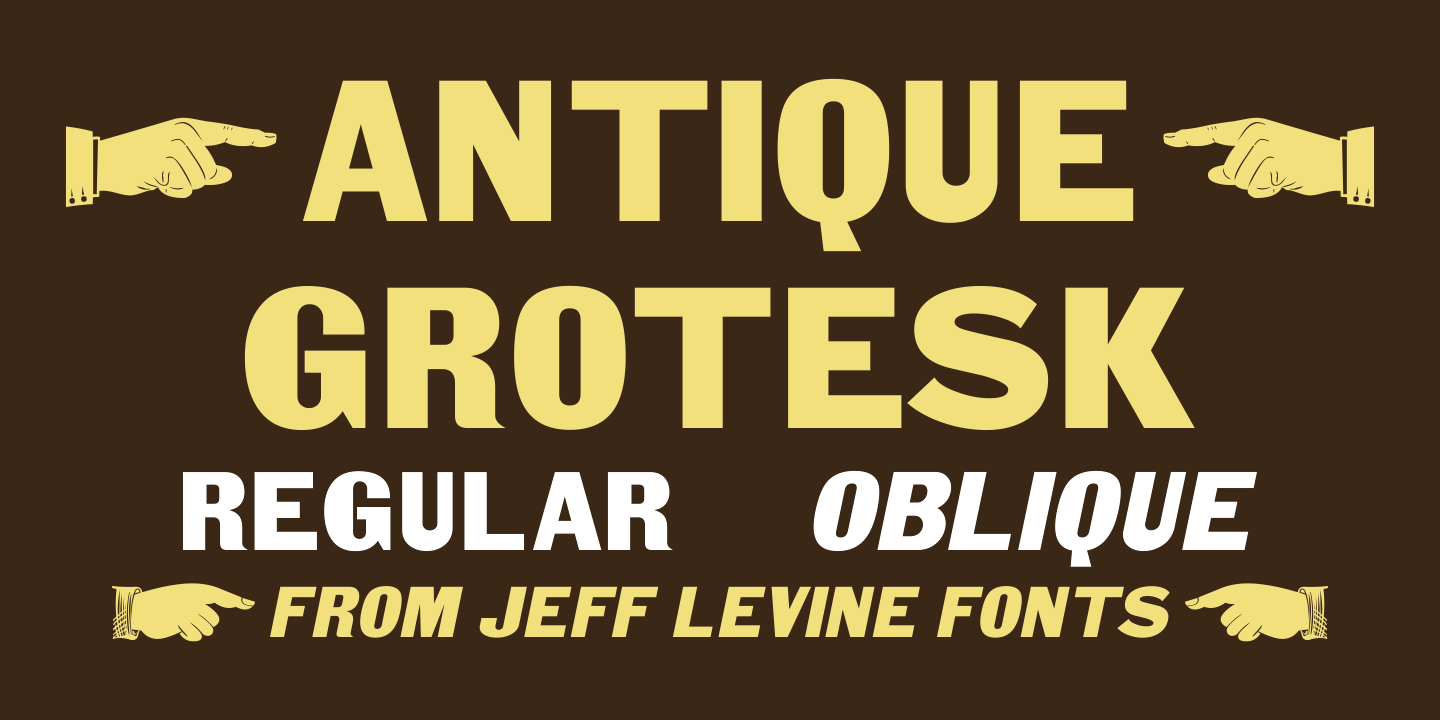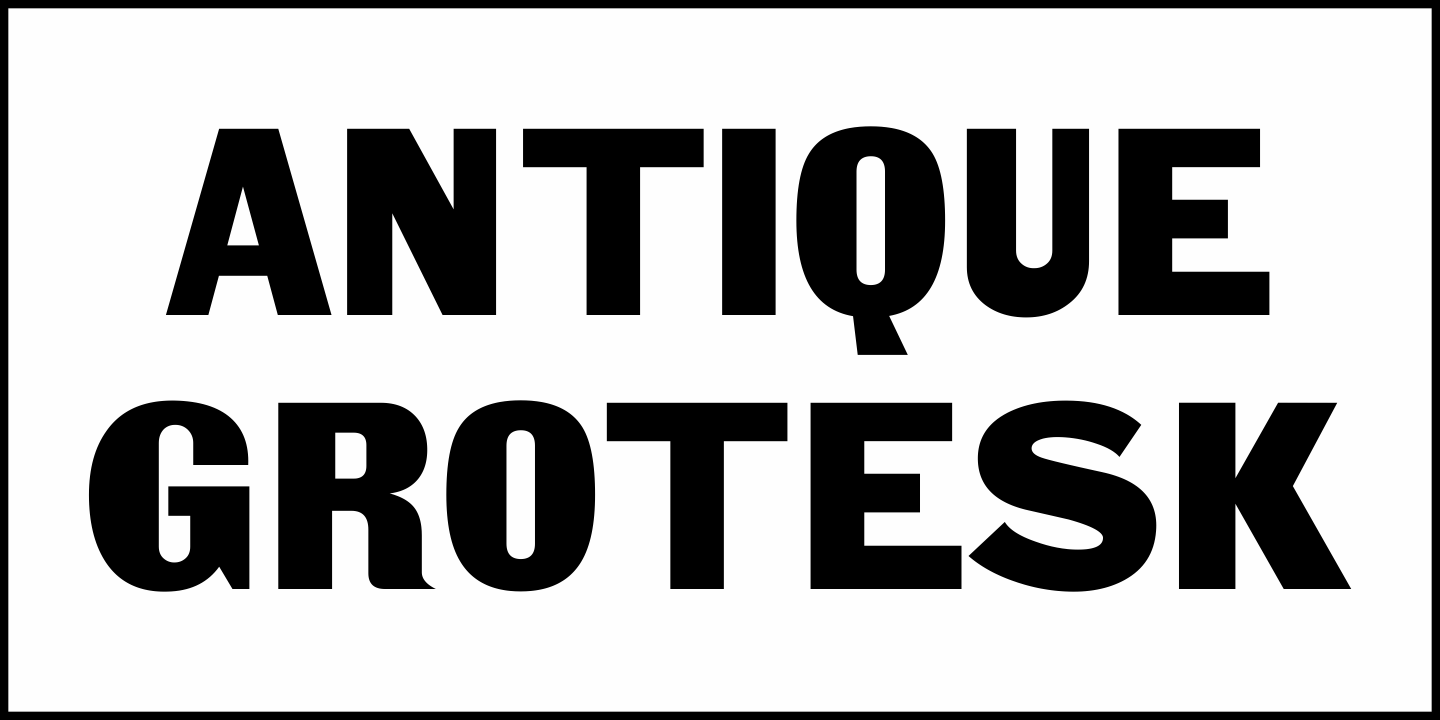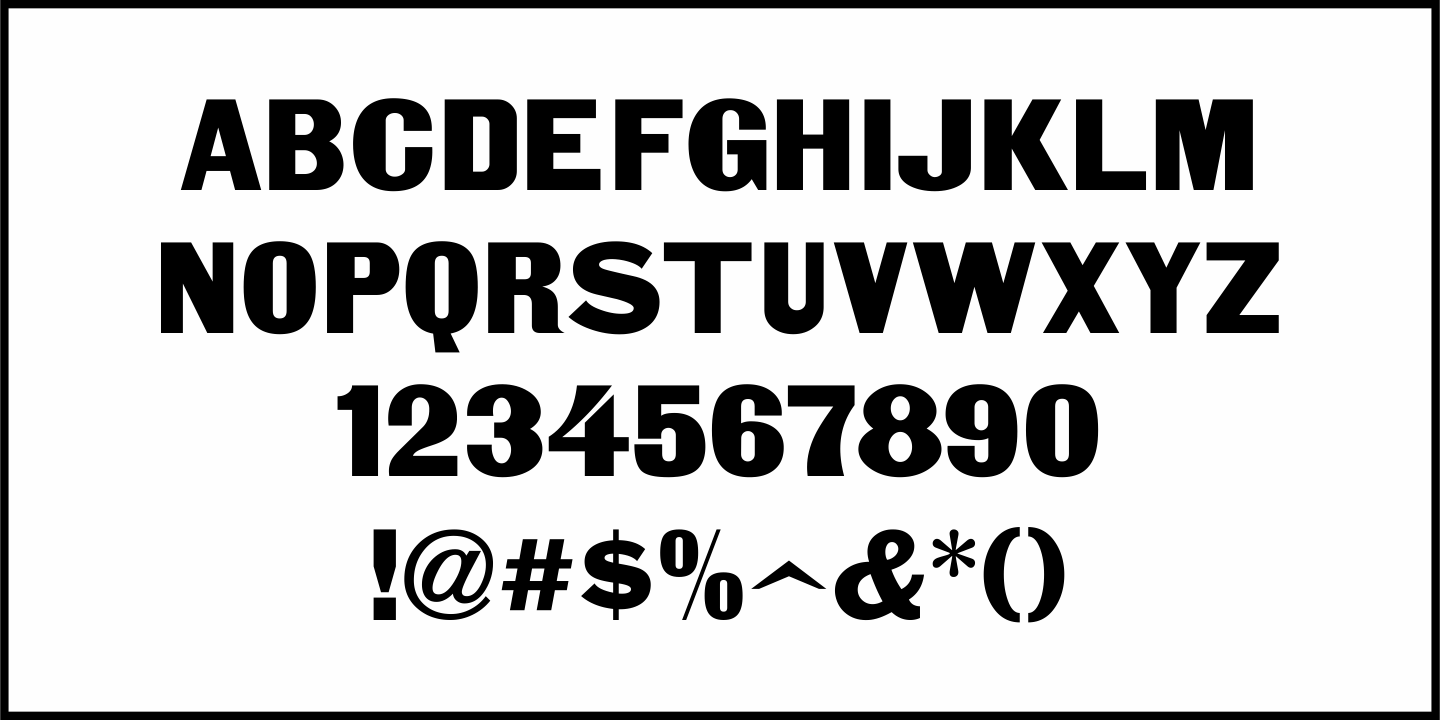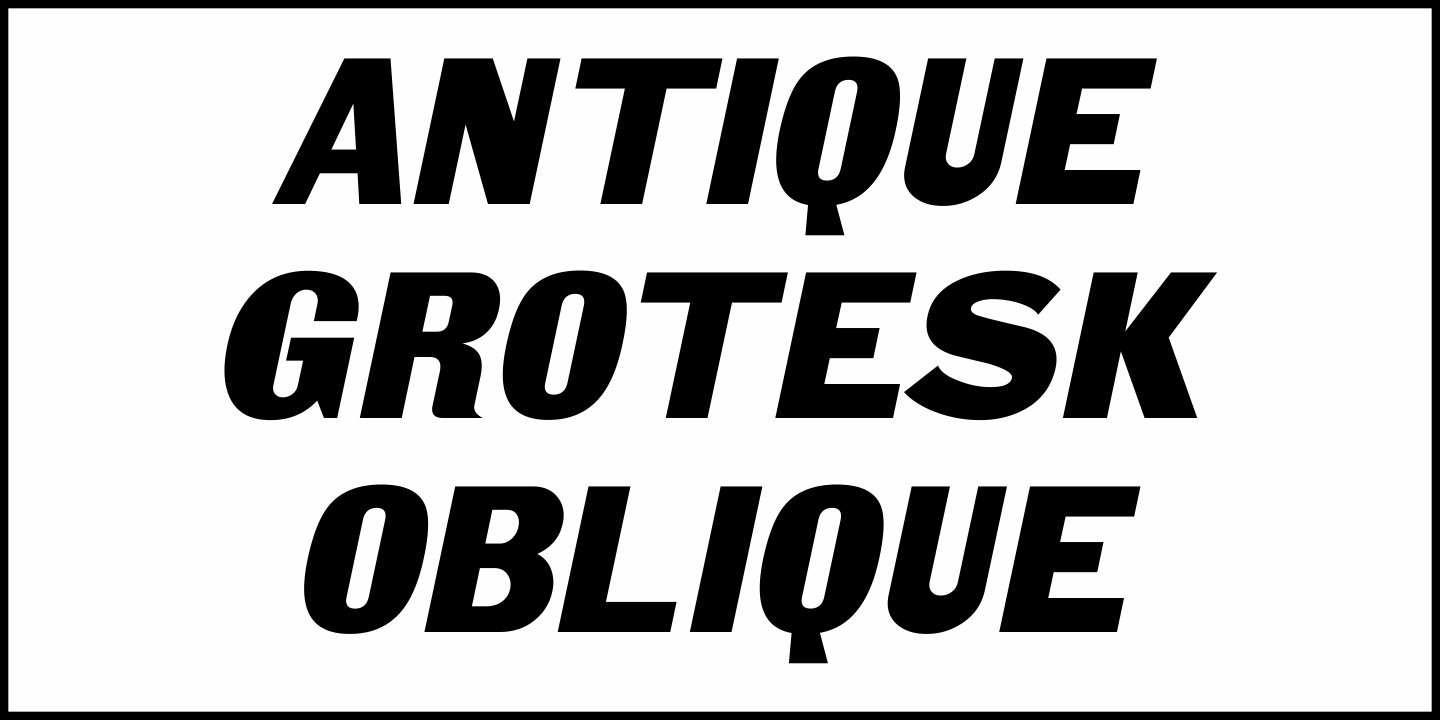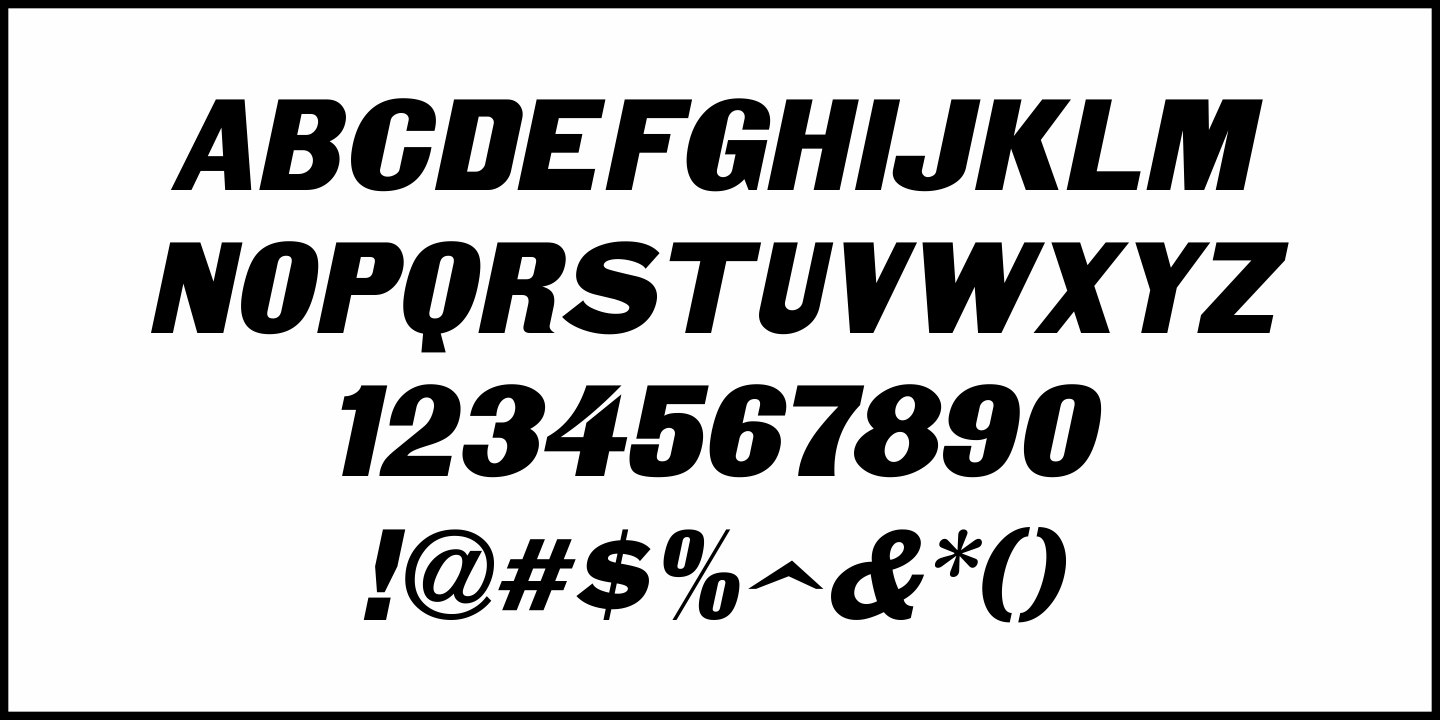
Antique Grotesk
Antique Grotesk JNL is based on Royal Gothic, a grotesk sans serif from American Type Founders in 1897, and is available in both regular and oblique versions.